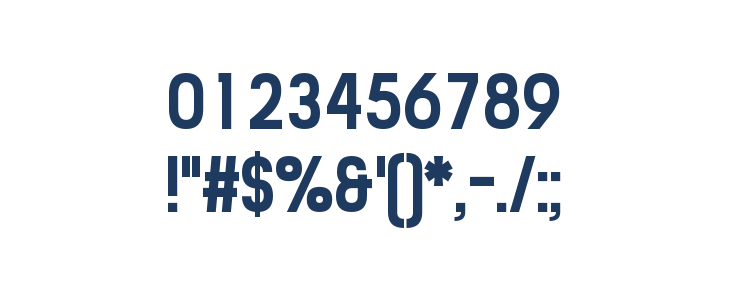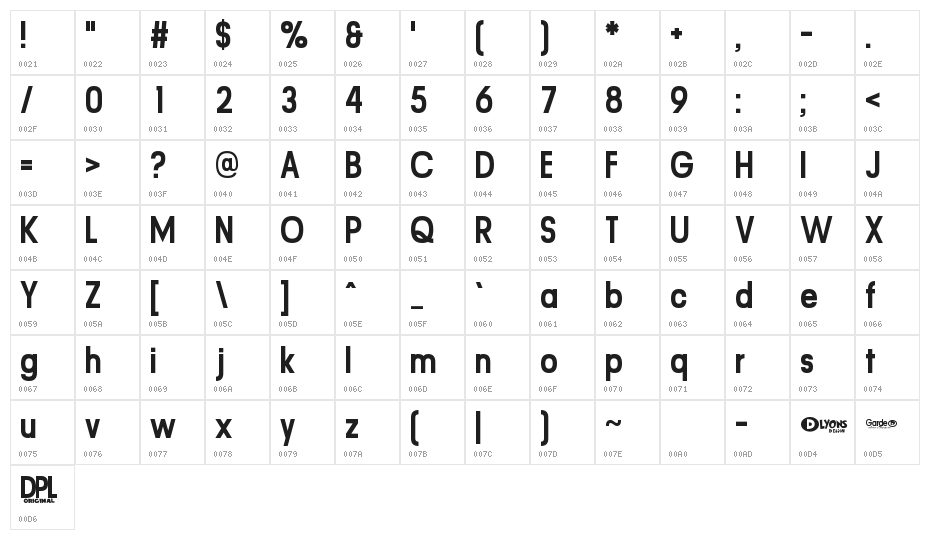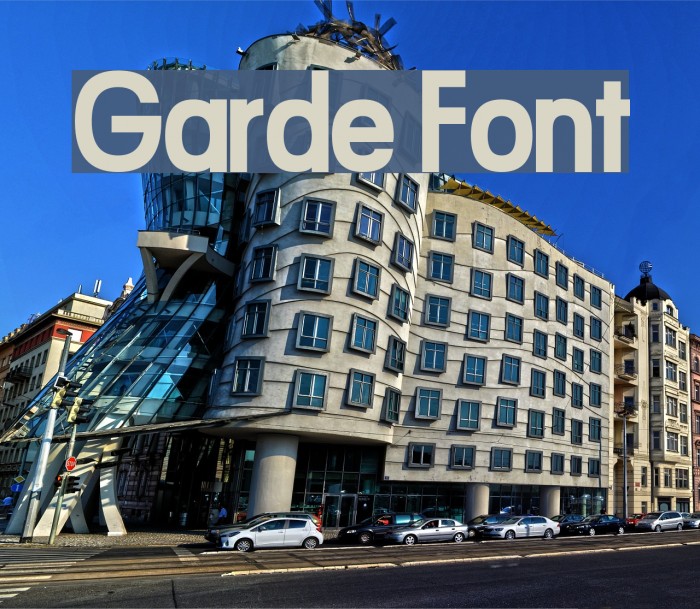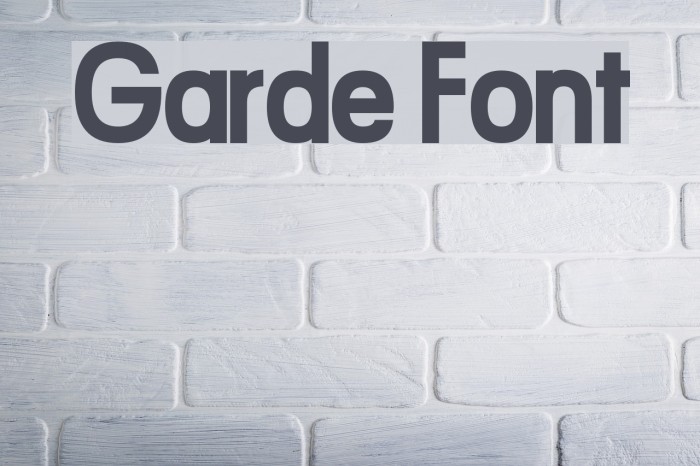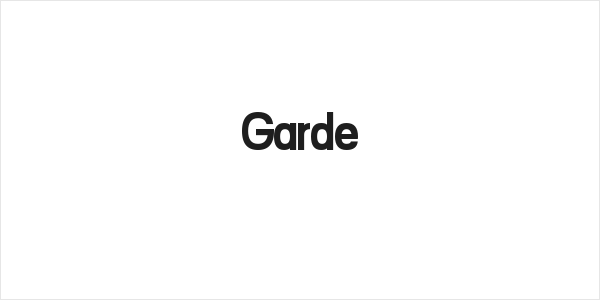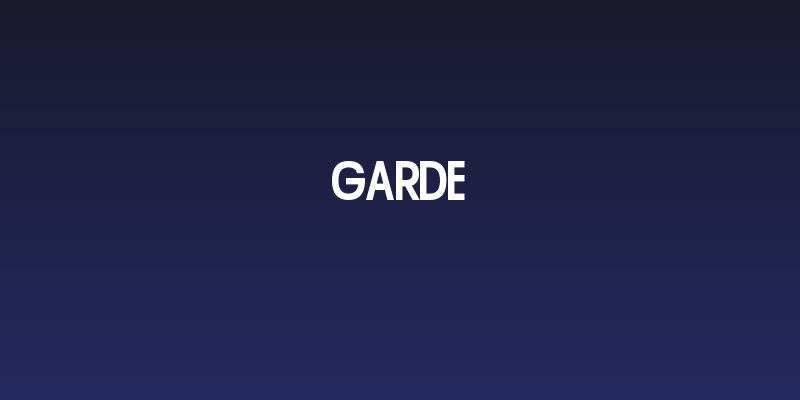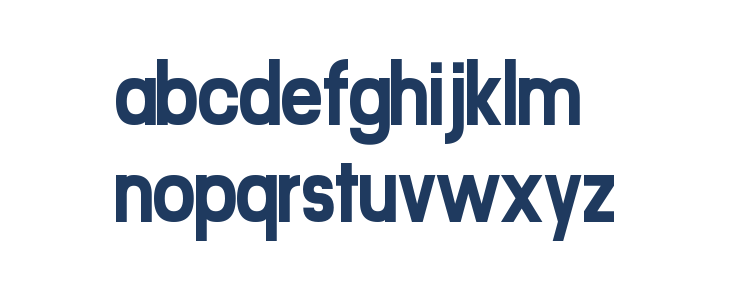
Garde Font
Garde Description
This font features a bold and modern sans-serif style, characterized by clean lines and a strong presence. The uppercase and lowercase letters are well-proportioned, with consistent stroke widths that convey a sense of stability and clarity. The numerals are straightforward and align well with the overall geometric aesthetic. Special characters are designed to complement the letters, maintaining the same boldness and simplicity. This font is versatile, suitable for both digital and print media, and can be used effectively in a variety of design contexts.
| Proposed Projects | Ideal for branding, advertising, headlines, and digital media projects requiring a modern and bold typeface. |